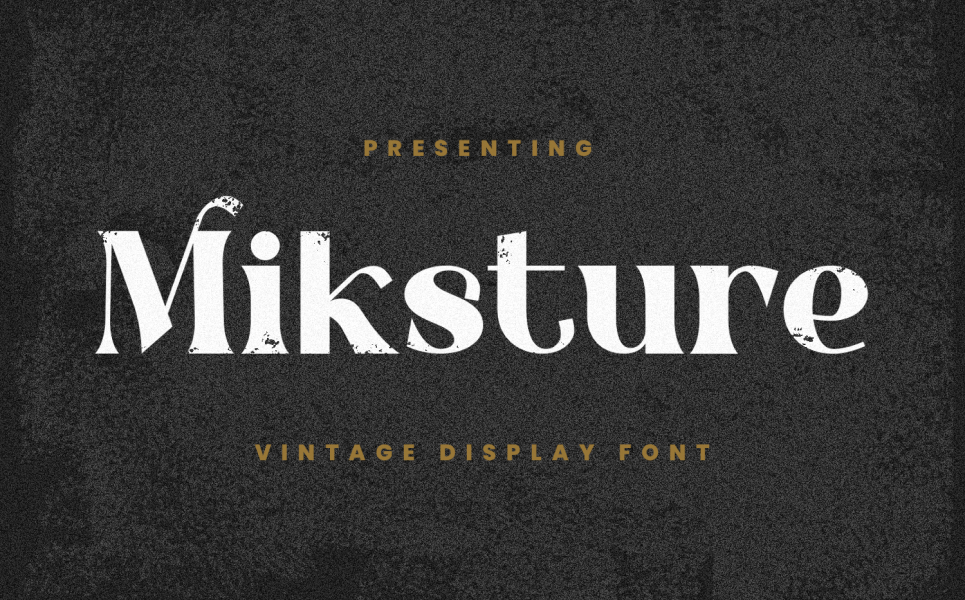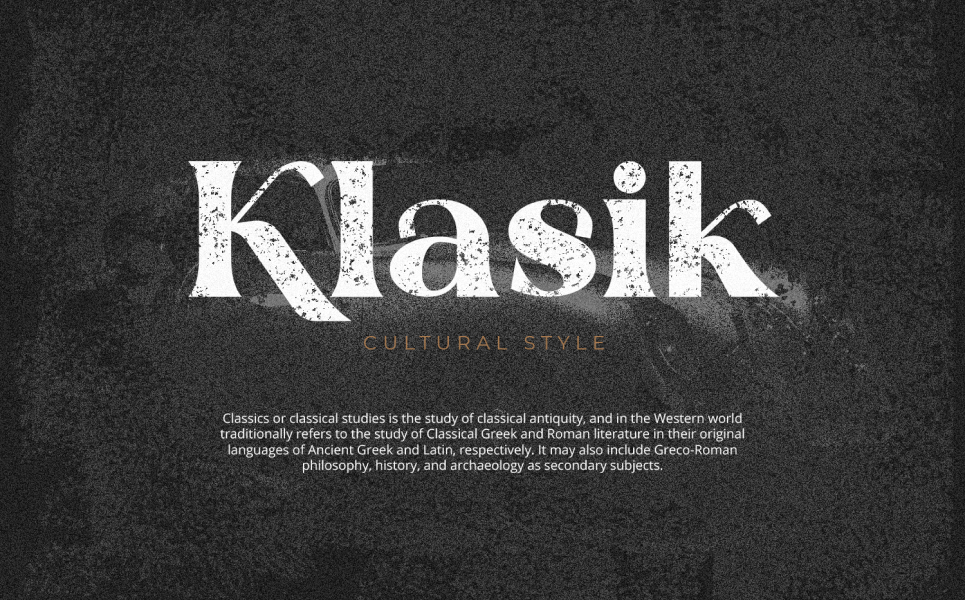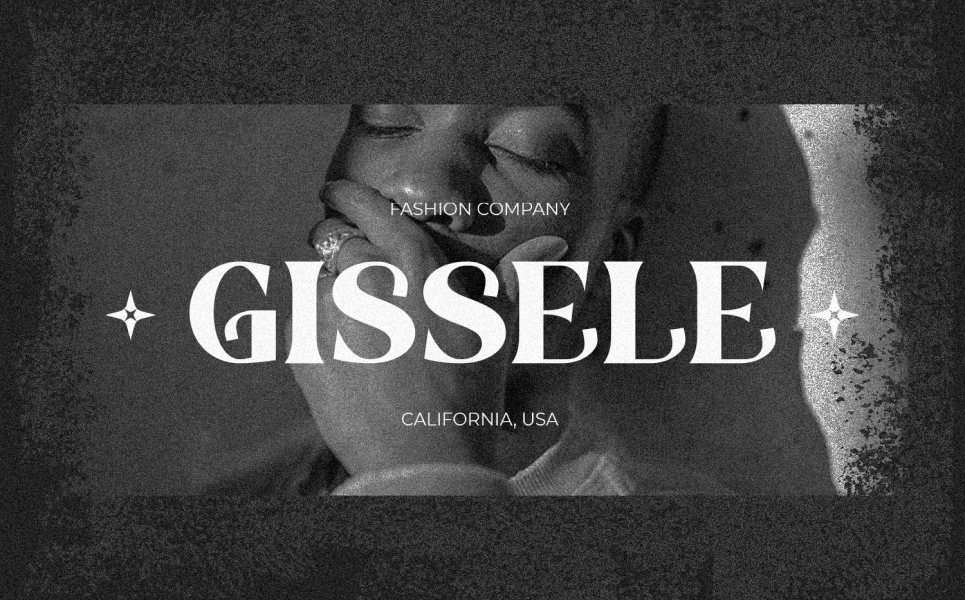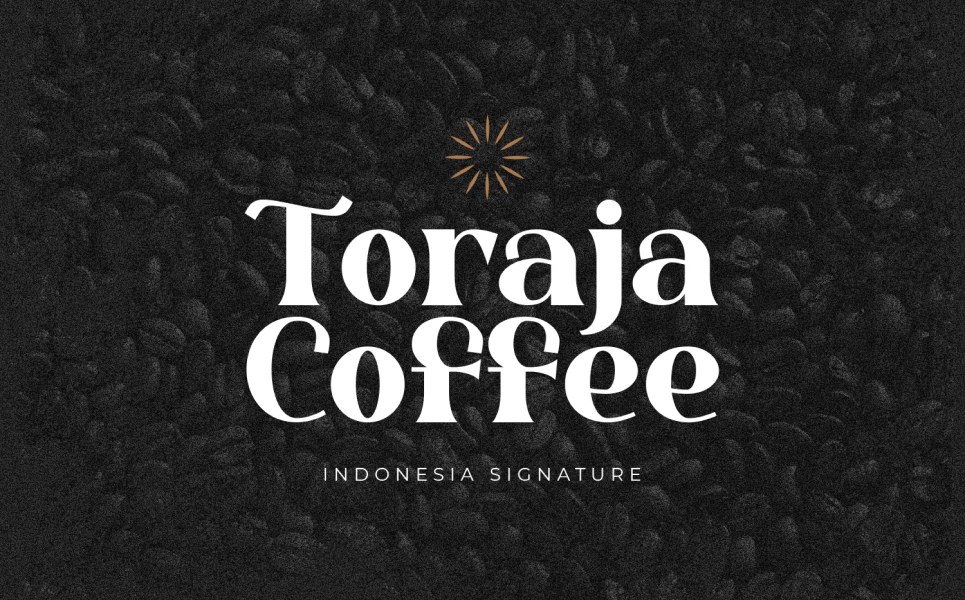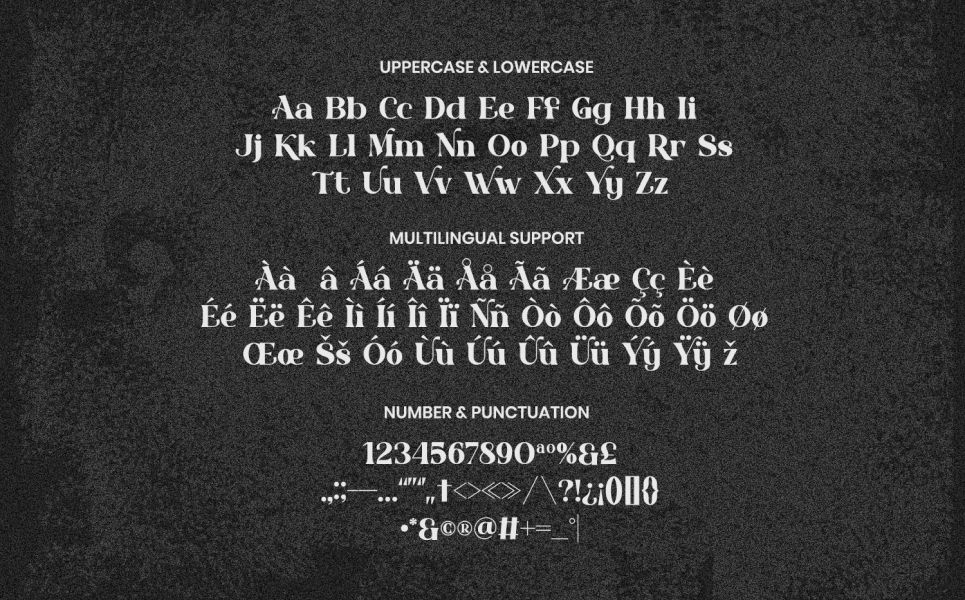
Miksture Display Typefaces Fonts
Miksture fonts look with simple, clean and visual elegance with smooth curves and beautiful ligatures.
A very versatile font that works in both large and small sizes. This font is suitable for a wide variety of projects such as headlines, logos, labels, branding projects, magazines, homeware designs, product packaging, mugs, quotes, posters and more.
Features:
- Uppercase and Lowercase
- Punctuation, Number and Symbol
- Multilingual Support ÀÁÂÃÄÅÆÇÈÉÊËÌÍÎÏÐÑÒÓÔÕÖØÙÚÛÜÝ